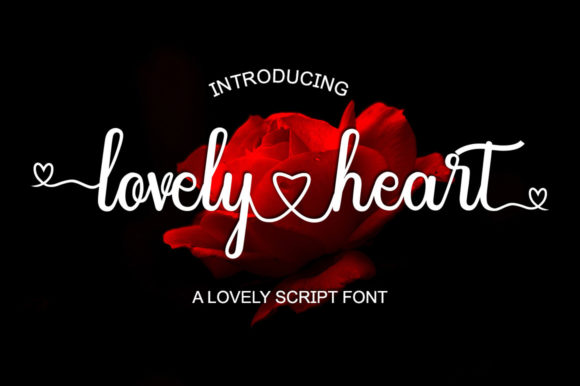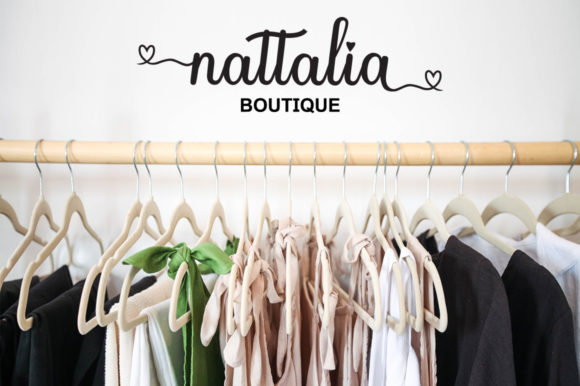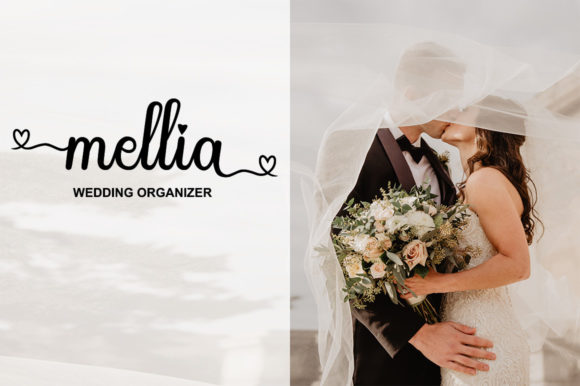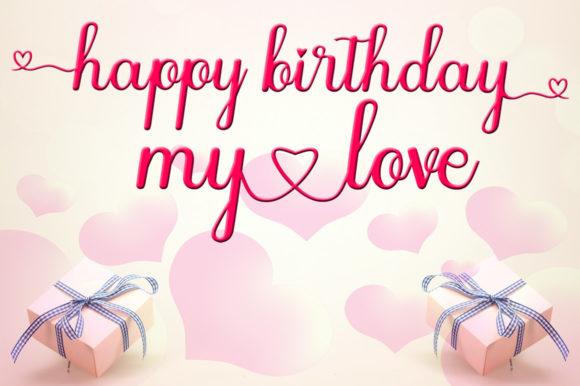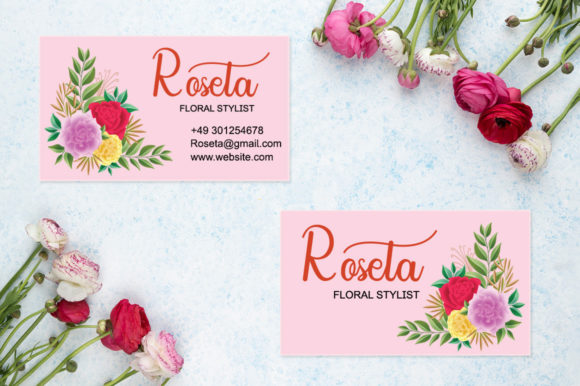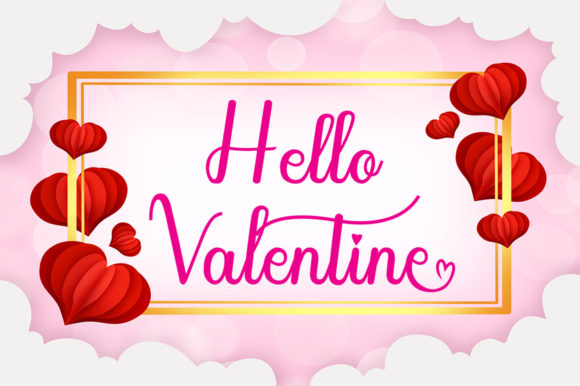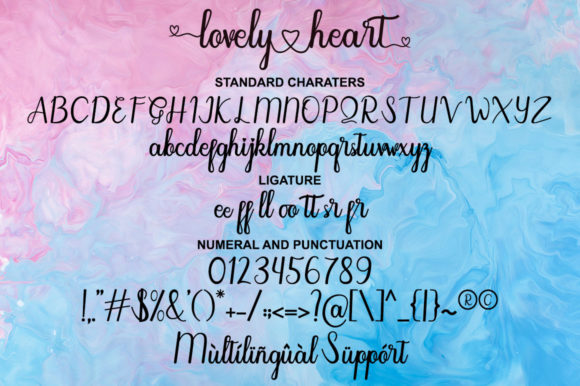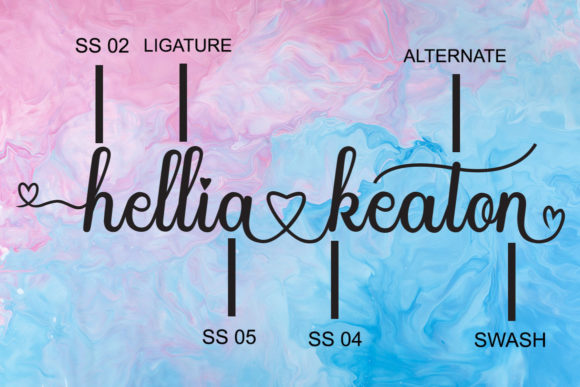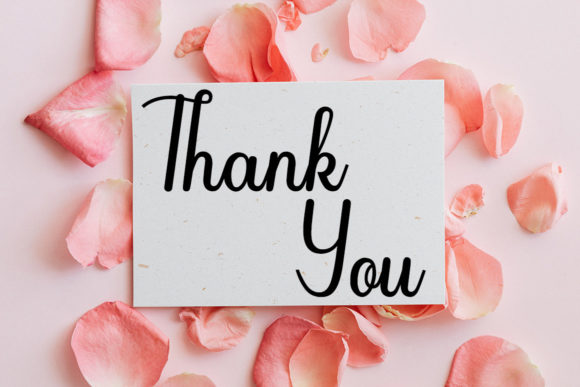
Lovely Heart Font
About Lovely Heart Font
Lovely Heart is a beautiful and poetic script font. It has a classy, romantic, and modern style that can be used for logos, branding, invitations, stationery, wedding designs, social media posts, and more!